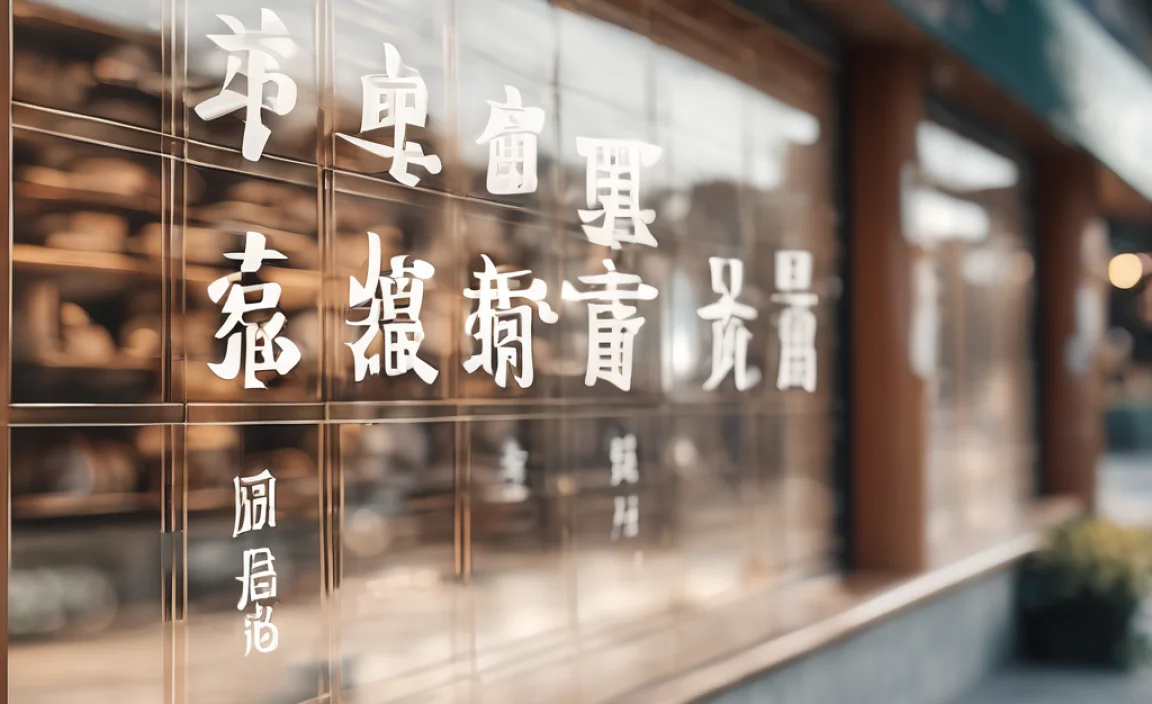
Have you ever wondered about the world of fonts? Fonts are like the clothes that our words wear. When it comes to Chinese writing, finding the best Chinese font can make a big difference. Whether you’re working on a school project or creating art, the right font can make your work shine.
Imagine a font that looks elegant and clear. It’s like a friendly helper that makes reading easier. That’s what the best Chinese font can do. Let’s dive in and explore some amazing fonts and why they matter!
Key Takeaways
- The best Chinese font can make text easy to read.
- Different fonts suit different writing styles.
- Chinese fonts often have unique, artistic styles.
- Some fonts are great for computers and printing.
- Choosing the best Chinese font can improve a project.
The Importance of Choosing the Best Chinese Font
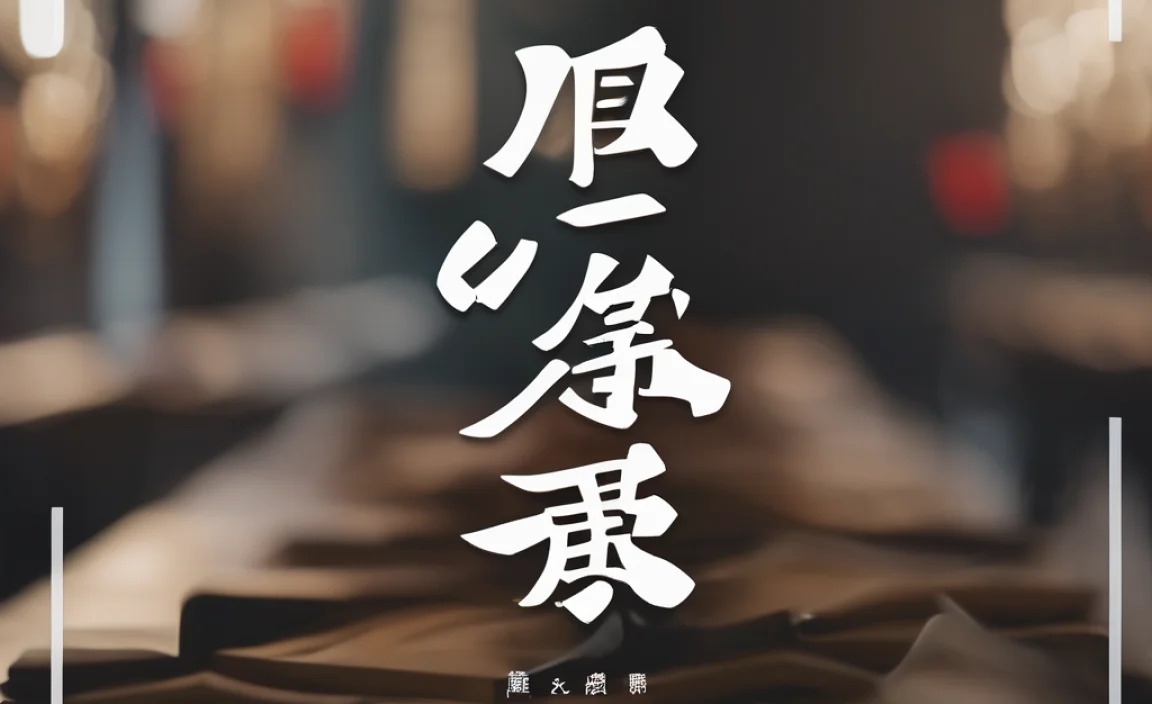
Choosing the right font is like picking the right outfit. It can change how we see things. For Chinese characters, the best Chinese font makes text clearer. It helps us understand what we’re reading. Designers use fonts to express emotions and style. A good font can make school projects and posters stand out. But with so many options, how do you choose?
- Find a font that is easy to read.
- Choose a font that fits the mood.
- Look for fonts that work well on screens.
- Consider fonts that print nicely on paper.
- Remember, some fonts are for special occasions.
Fonts can be serious, fun, or creative. Picking the right one can be an adventure. Check out samples when choosing. Think about where you will use the font. Will it be on a computer or in a book? This can help you decide. Ask friends or teachers for their opinions too!
Fun Fact: Some fonts have over 50,000 different Chinese characters!
Why Fonts Matter in Chinese Writing
Have you ever seen a book with hard-to-read letters? Fonts are important. Good fonts make reading fun and easy. Chinese writing is beautiful, but it can be tricky. The best Chinese font helps letters look neat and organized. This makes reading a breeze. Just like how we like wearing comfortable clothes, we enjoy reading comfortable fonts. Next time you read a story, notice the font!
Different Styles for Different Needs
Imagine wearing a tuxedo to play soccer. It wouldn’t work! Just like clothes, fonts have different styles for different needs. Some fonts look fancy, while others are simple. The best Chinese font fits the task. School work might need a clean font. Art projects might need a wild one. Look around, and you’ll see how fonts change the look of things.
Finding Fonts for Technology
We use computers and phones a lot. Have you noticed the letters are always clear? That’s because they use special fonts. The best Chinese font for technology is easy to read on screens. It makes texting and reading online fun. Imagine if the letters were all jumbled! Next time you’re messaging friends, thank the fonts that make it easy!
Popular Chinese Fonts Explained
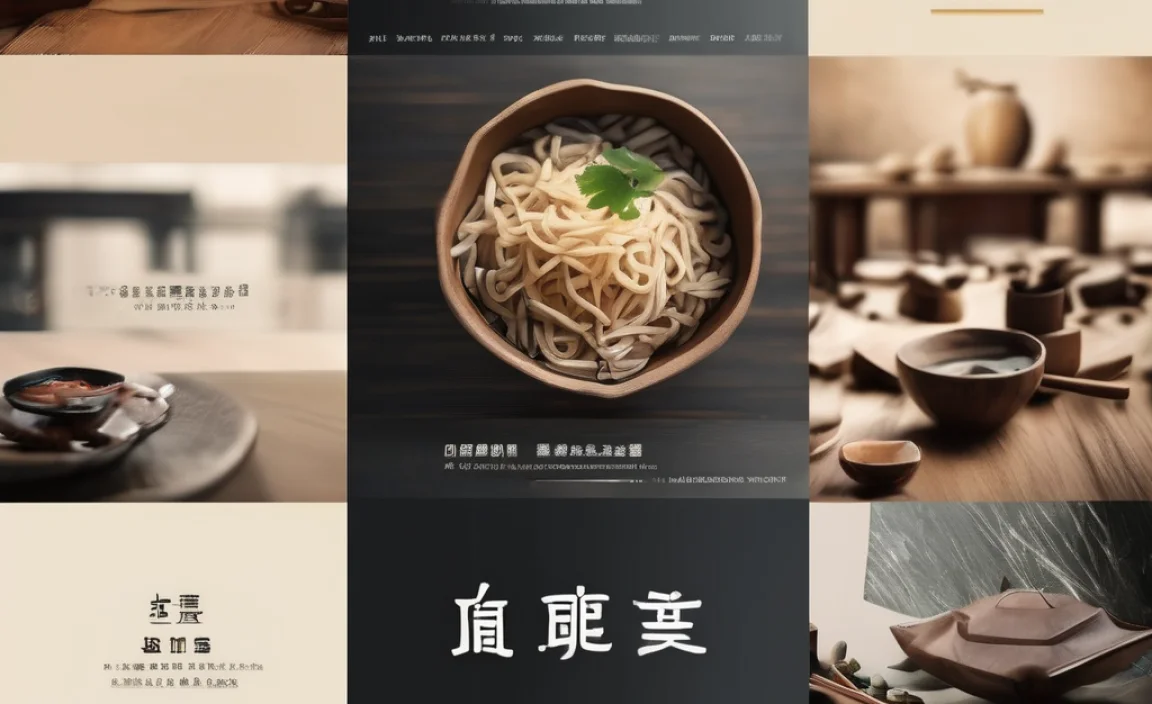
There are many Chinese fonts out there. Some are famous, while others are hidden gems. Let’s talk about a few popular ones. The best Chinese font often depends on what you’re doing. For books, you might see Ming fonts. These are traditional. For signs, you might see black fonts. They are bold and catch the eye. Each font has its own personality!
- Ming fonts are traditional and neat.
- Black fonts are bold, perfect for headlines.
- Handwriting fonts look like human writing.
- Display fonts are playful and fun.
- Serif fonts have little lines at the edges.
Choosing the right font is like picking a favorite toy. It can change how you feel about what you’re doing. Next time you’re writing a report or making a poster, try different fonts. See which one feels just right. You might find a new favorite!
Fun Fact: There are over 700,000 fonts in the world today!
Ming Fonts: A Classic Choice
Ming fonts are like a wise, old friend. They have been around for a long time. Do you like reading stories from the past? Ming fonts make reading them easier. They’re neat and clear. When you see a Ming font, you feel like you’re stepping back in time. Next time you see a history book, check if it’s using a Ming font!
Black Fonts: Bold and Eye-Catching
Black fonts shout “Look at me!” They’re perfect for grabbing attention. Have you ever seen a big, bold sign? It might be using a black font. These fonts are thick and strong. They stand out in a crowd. If you want your work to catch eyes, a black font might be just right. Try it out in your next art project!
Handwriting Fonts: Personal Touch
Handwriting fonts look like real writing. They add a personal touch to letters. Imagine sending a card that looks like you wrote it by hand. These fonts are fun! They remind us of writing letters to friends. Next time you want to add a personal feel, try a handwriting font. It might become your new favorite!
Question: How do I choose a font for art?
Answer: Choose a font that matches the mood of your art. Display fonts are playful and fun. They can add excitement to your artwork.
Question: Are all Chinese fonts the same?
Answer: No, they are not. Chinese fonts come in many styles. They can be traditional, bold, or even playful. The best Chinese font depends on what you need.